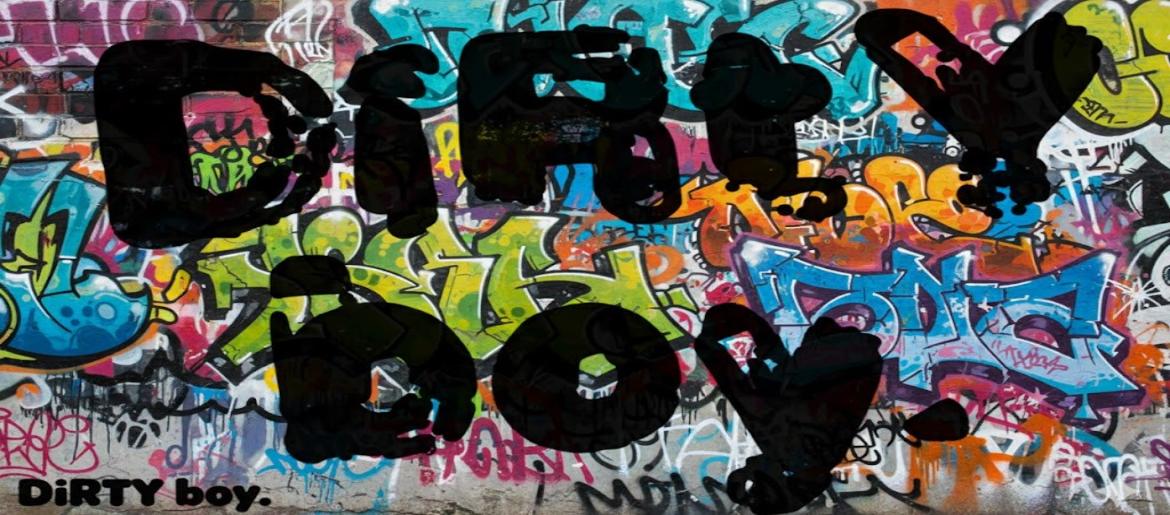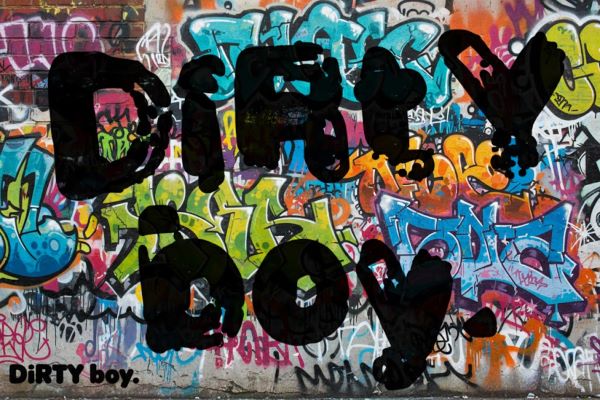
Dirty Boy Font
Dirty Boy Font is a bold graffiti-style typeface featuring rough strokes and urban attitude. Its edgy, street-inspired look makes it ideal for posters, logos, album covers, and designs that need a raw, expressive, and rebellious visual impact.
➤ Style: Graffiti